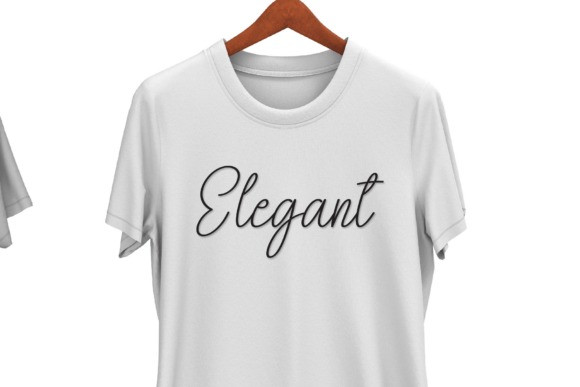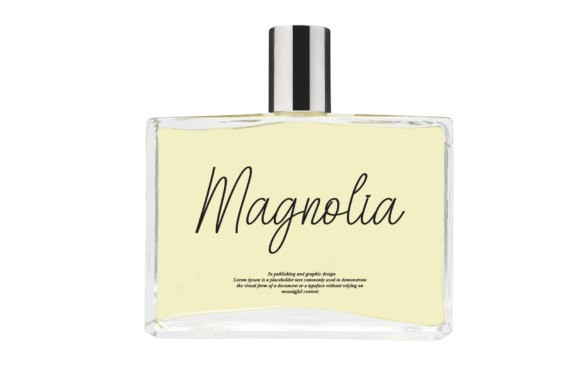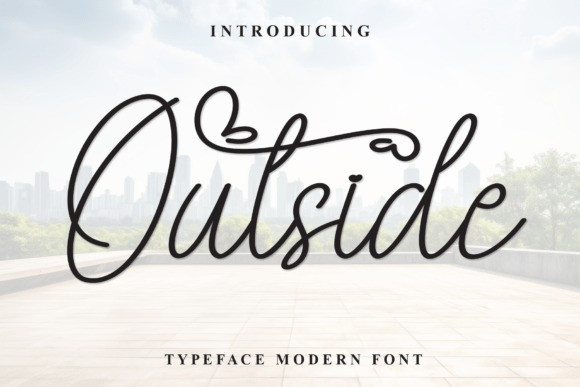
Outside Handwriting Font
Outside Handwriting Font an engaging and endearing handwritten display font that exudes both sweetness and friendliness. Imprinted with a delightful charm, this font breathes life into your wedding invitations, cards, or any design project that could use a dash of fun. Experience a unique harmony of elegance and whimsy, making any text incredibly eye-catching and engaging. This font personifies jovial creativity, transforming the ordinary into an entertaining visual feast.